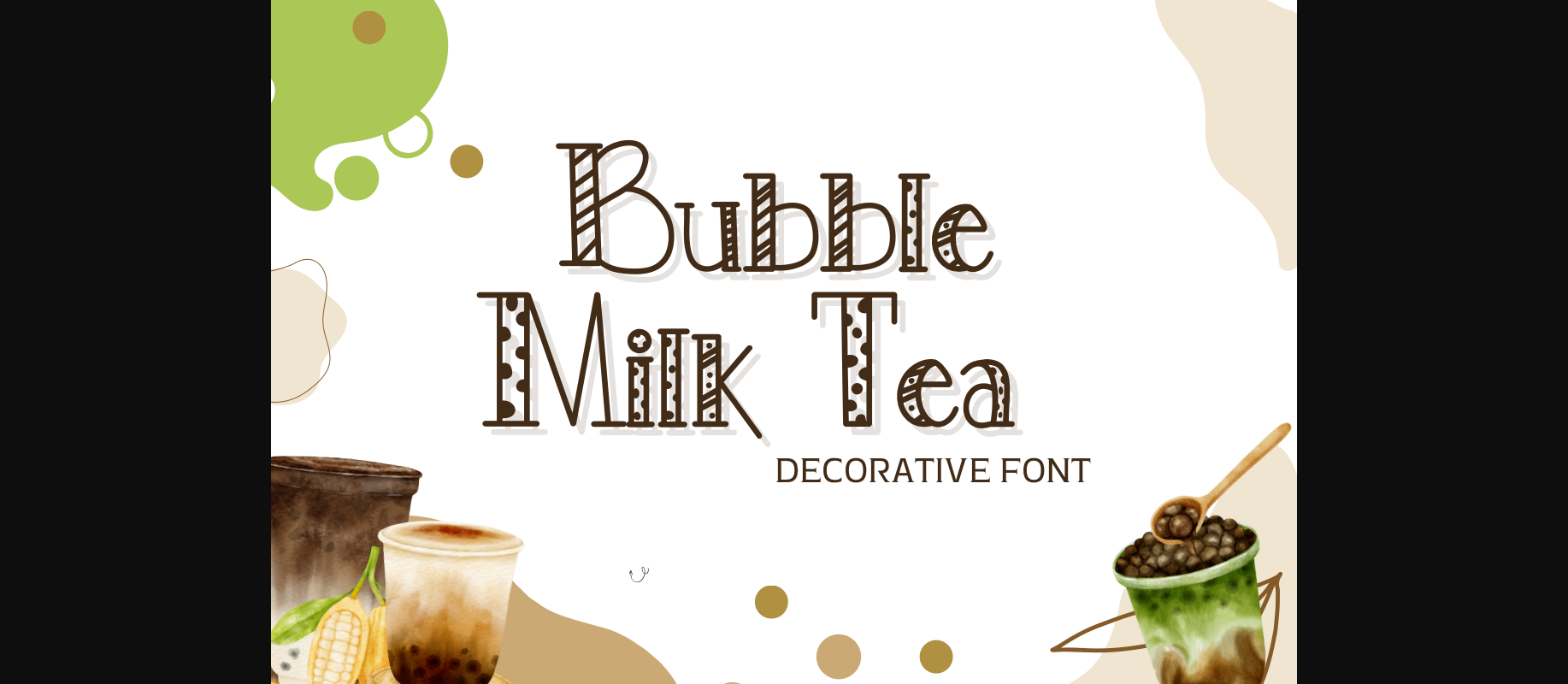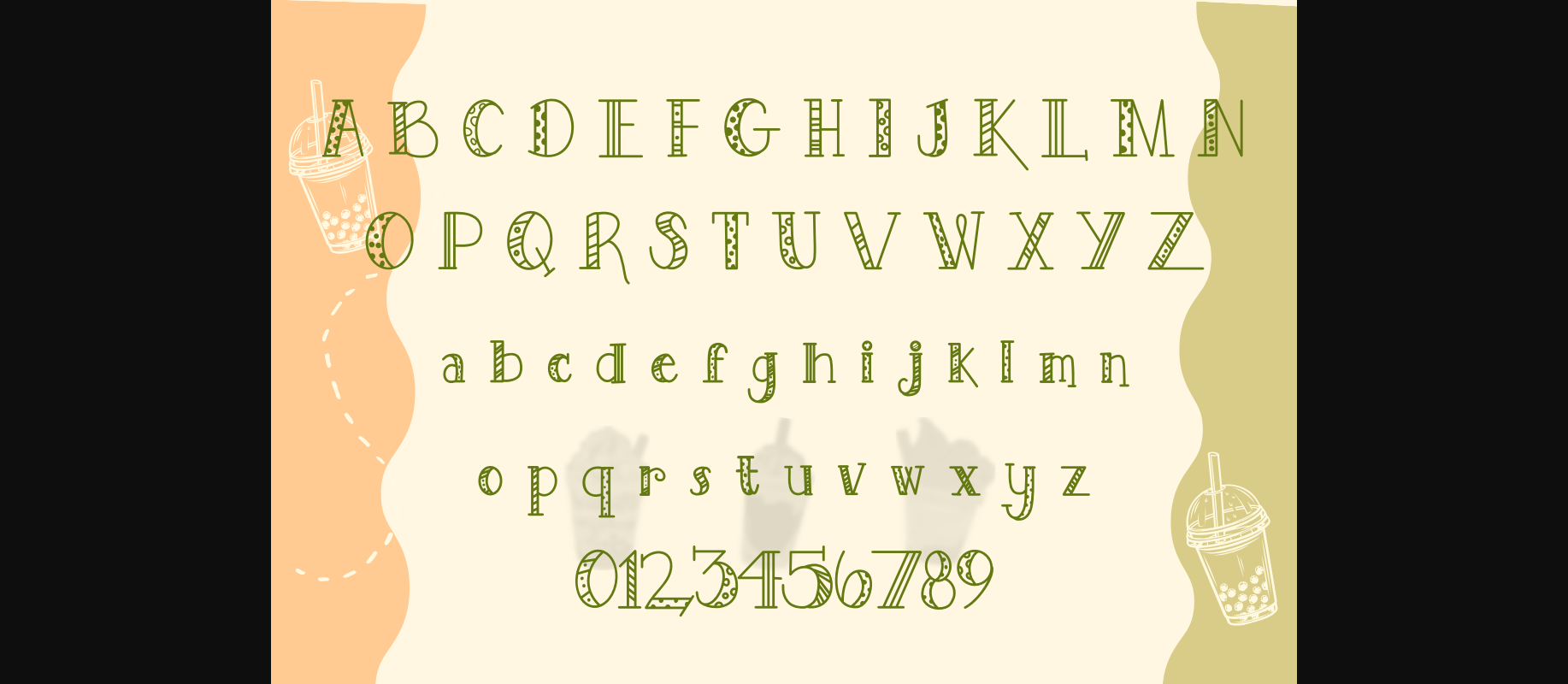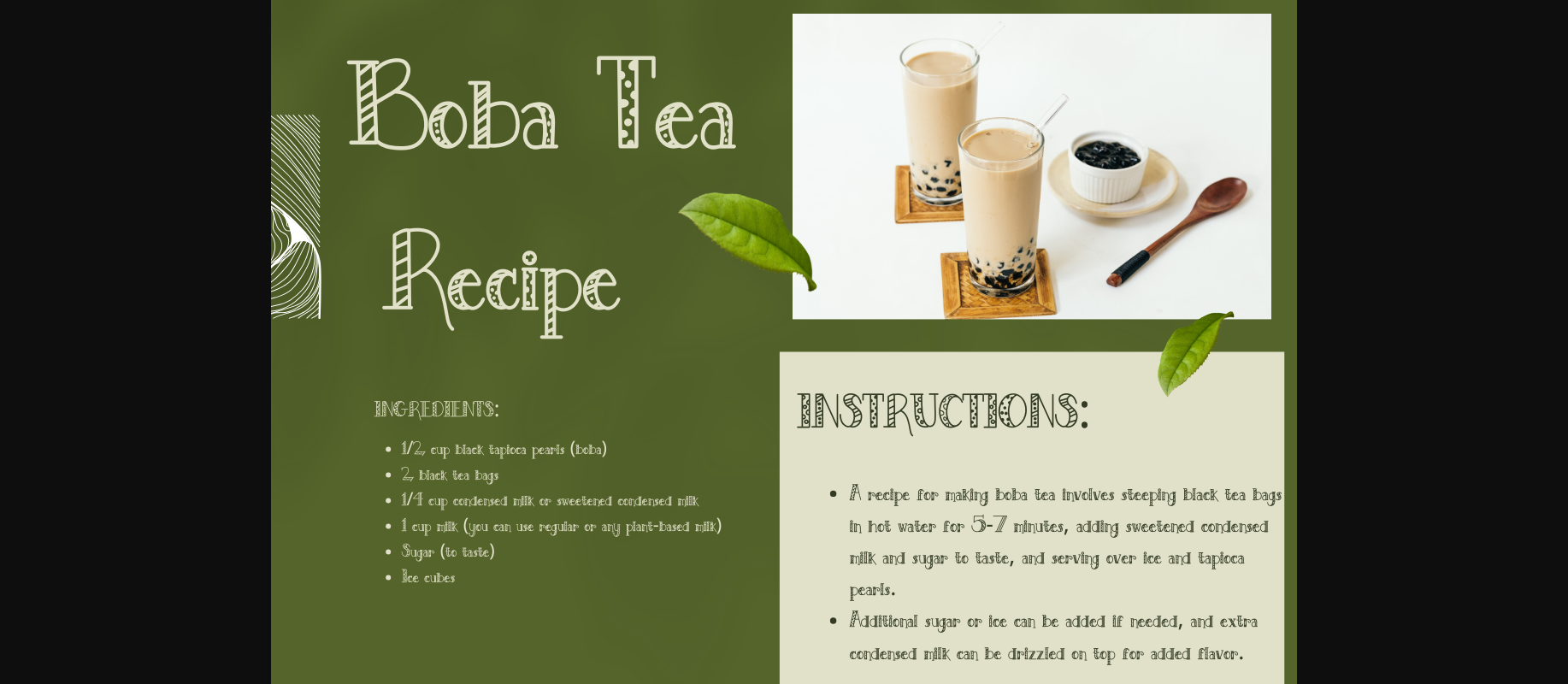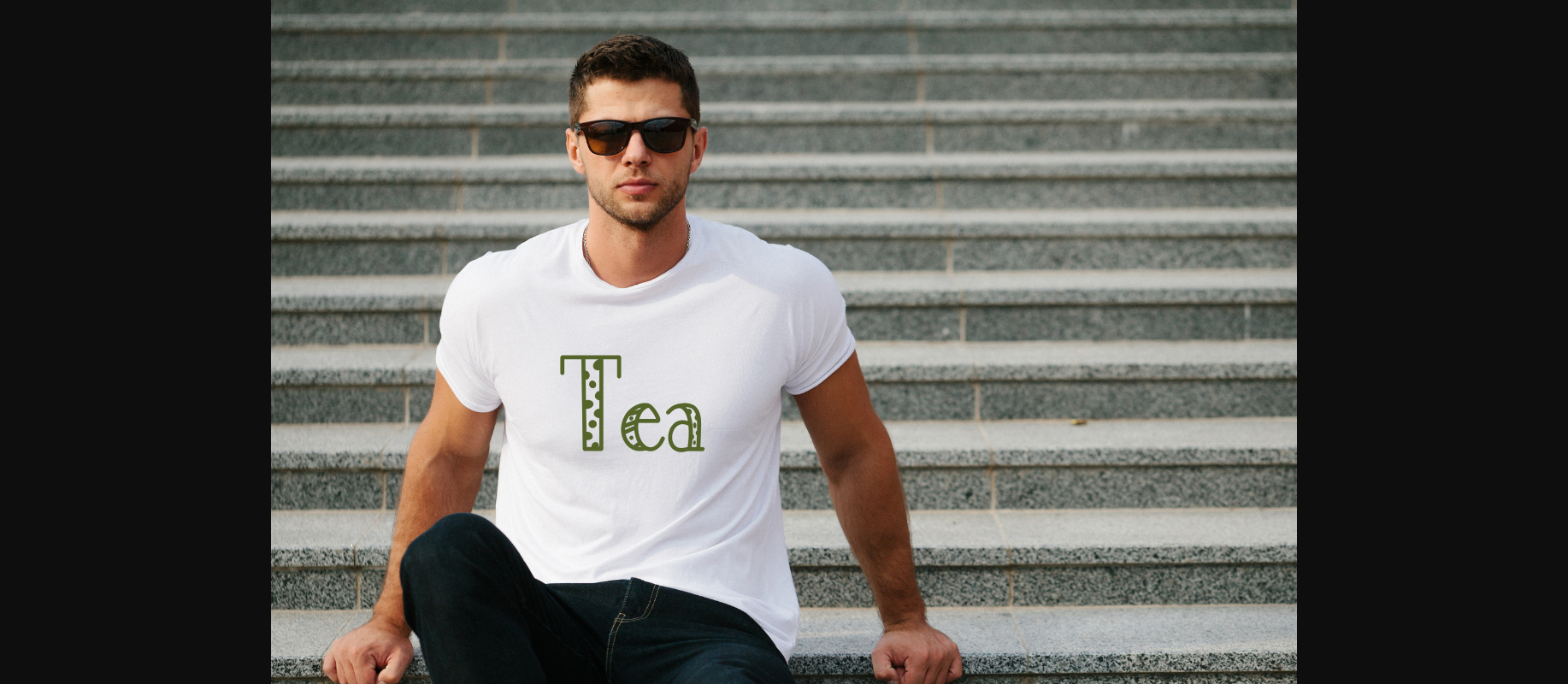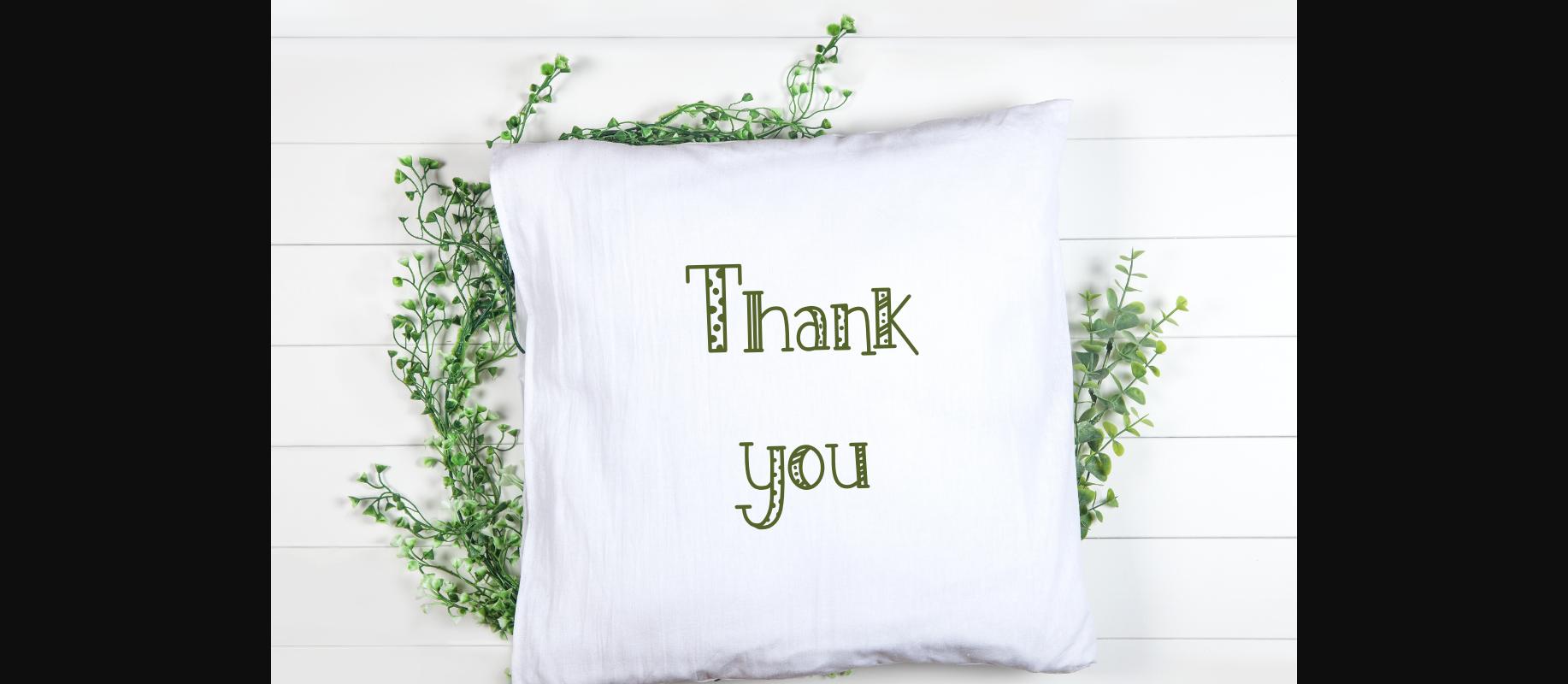
Bubble Milk Tea Font
About Bubble Milk Tea Font
Bubble Milk Tea is a delightful and playful decorative typeface inspired by the bubbly charm of everyone’s favorite beverage. With its round shapes and smooth lines, it evokes a sense of sweetness and whimsy, perfect for adding a fun touch to your designs.